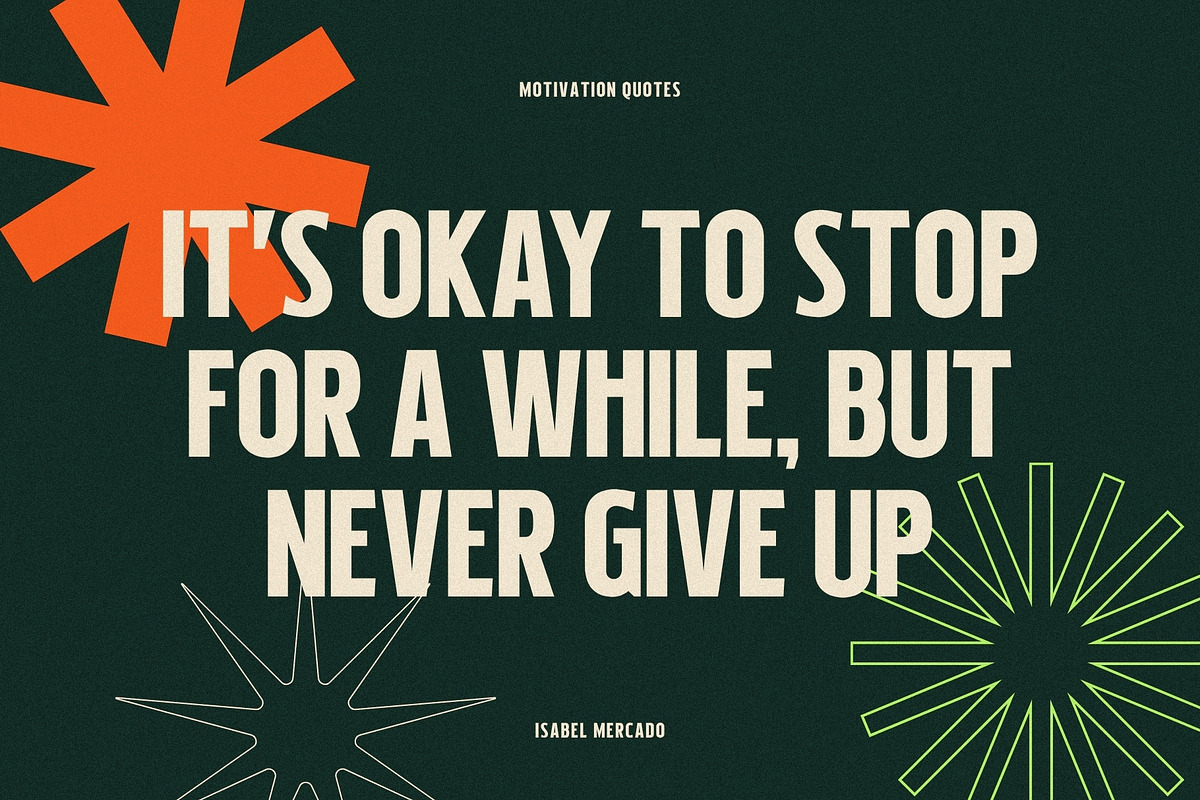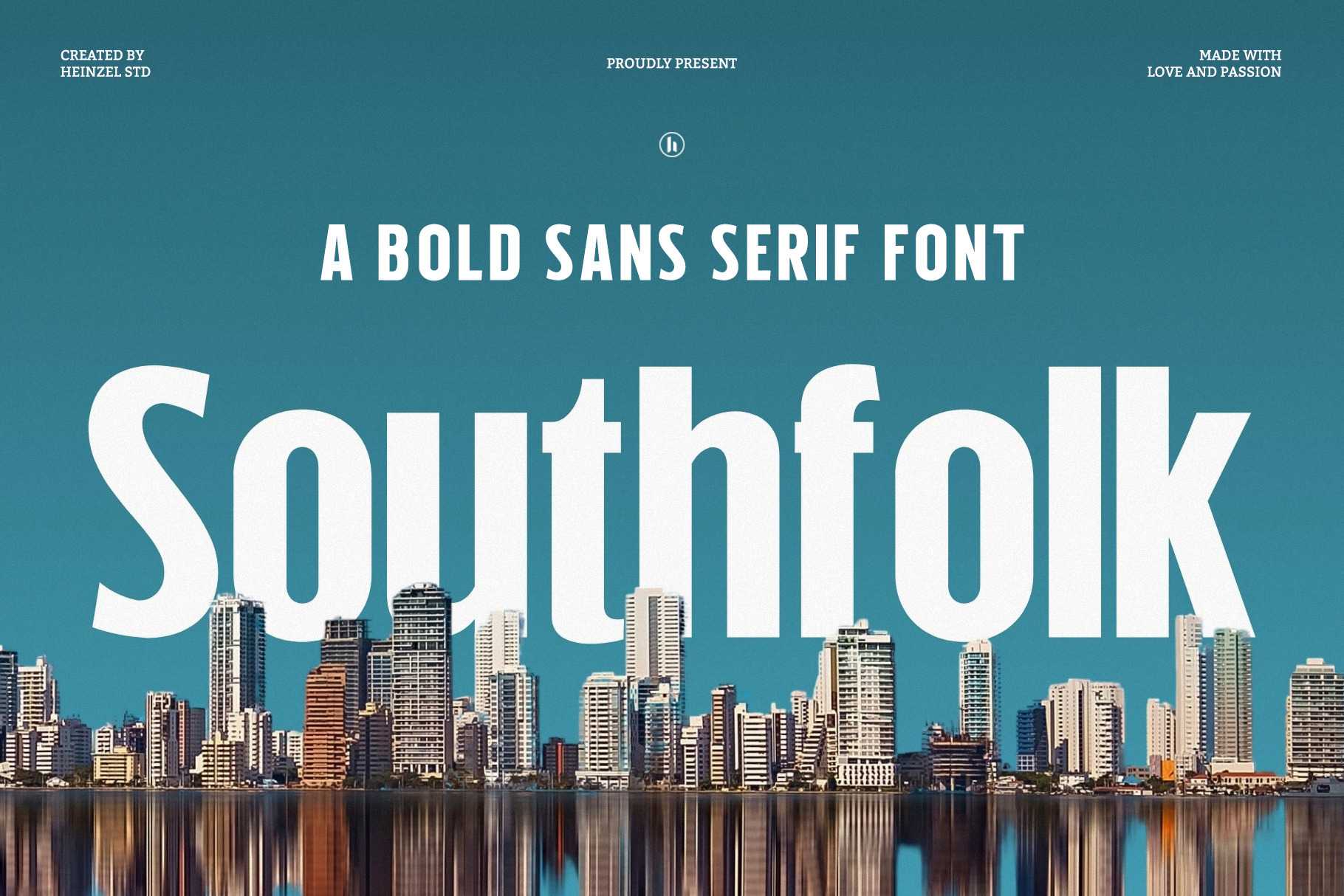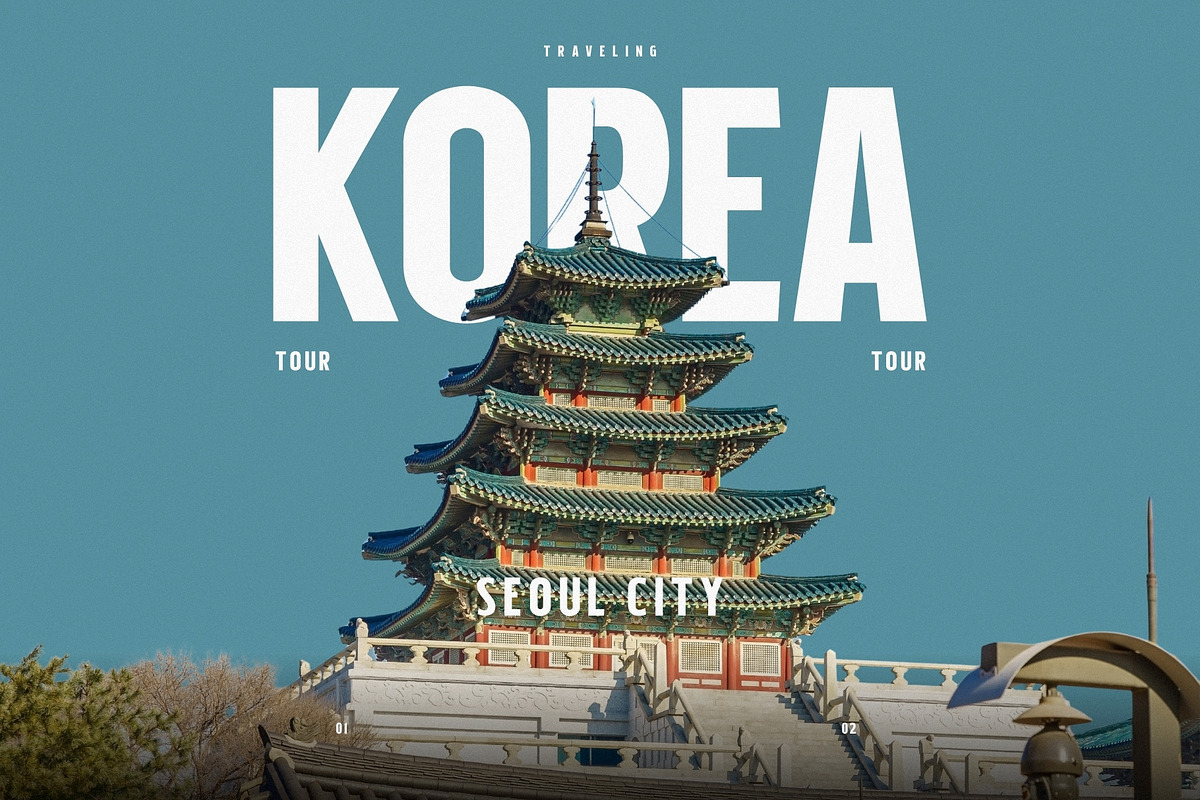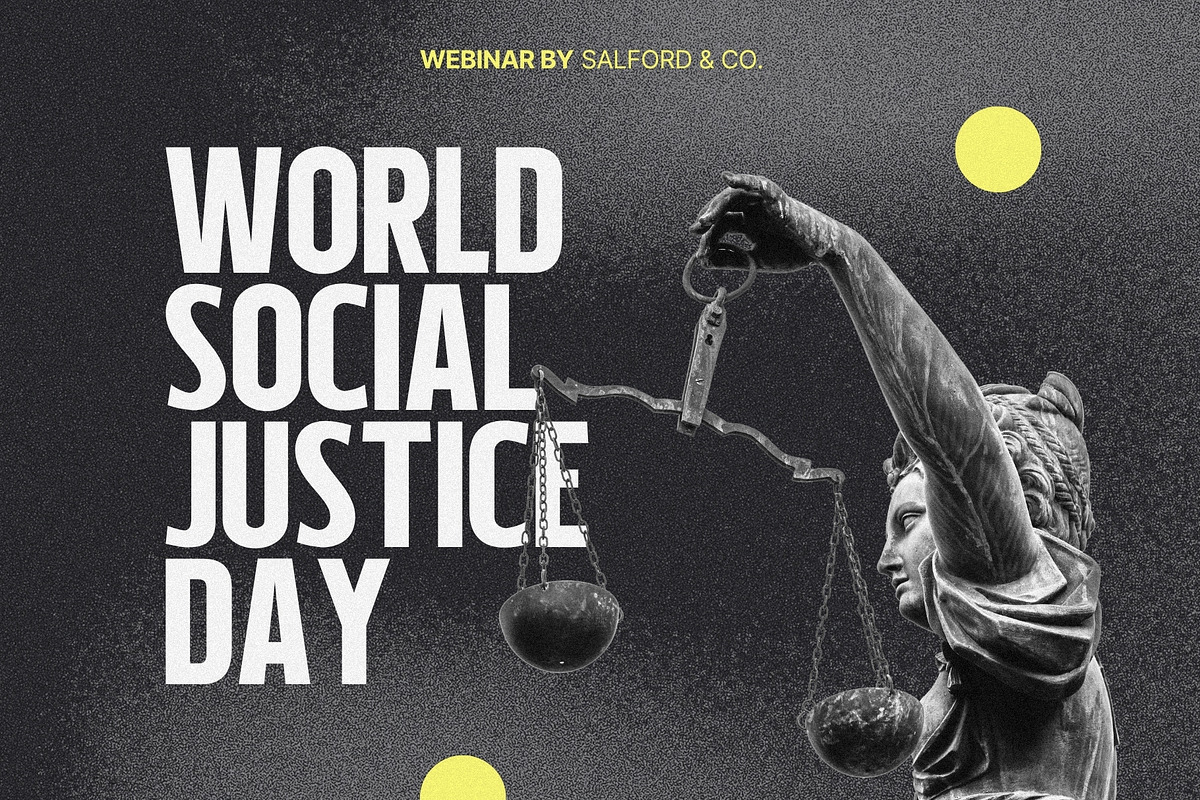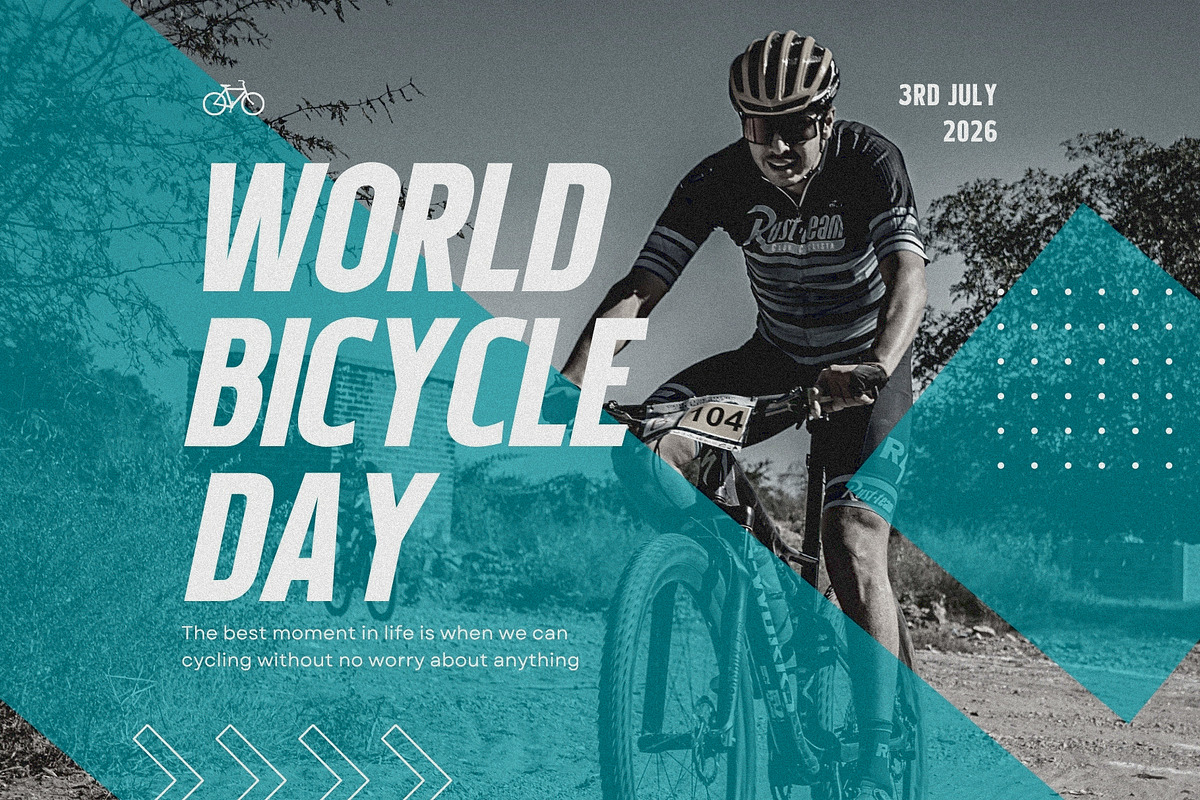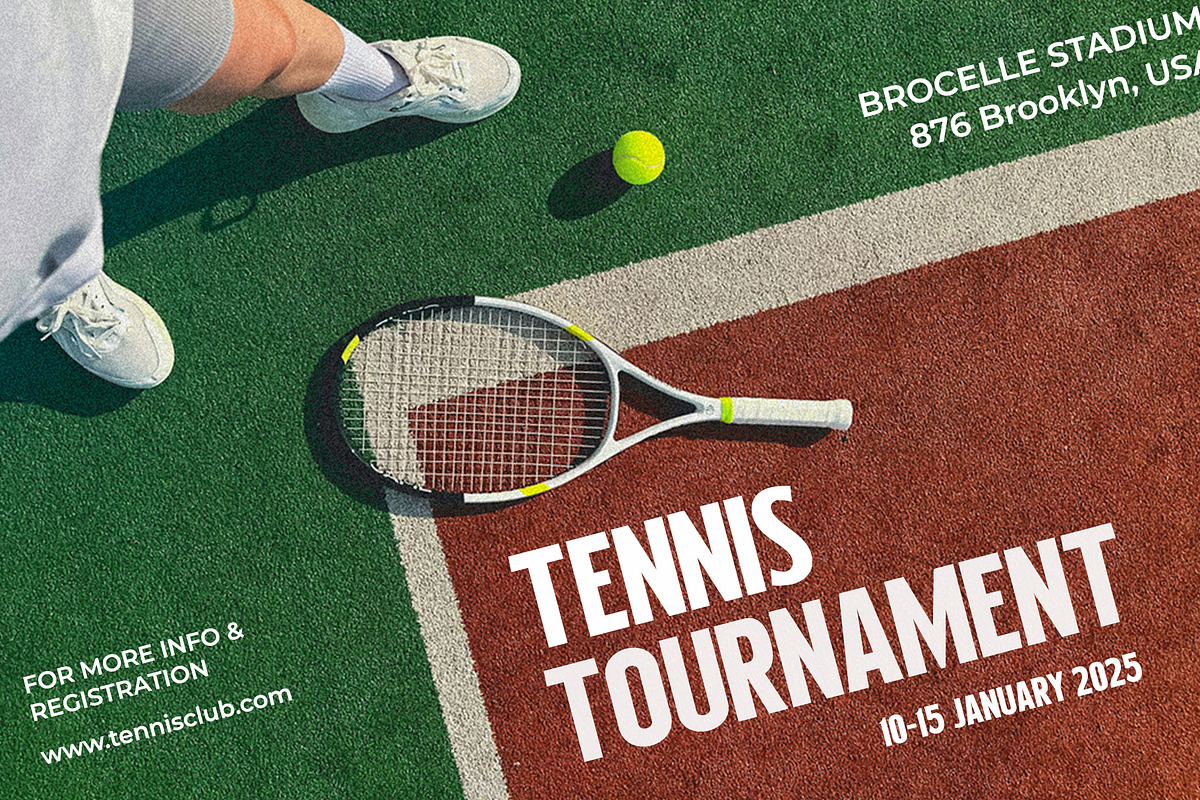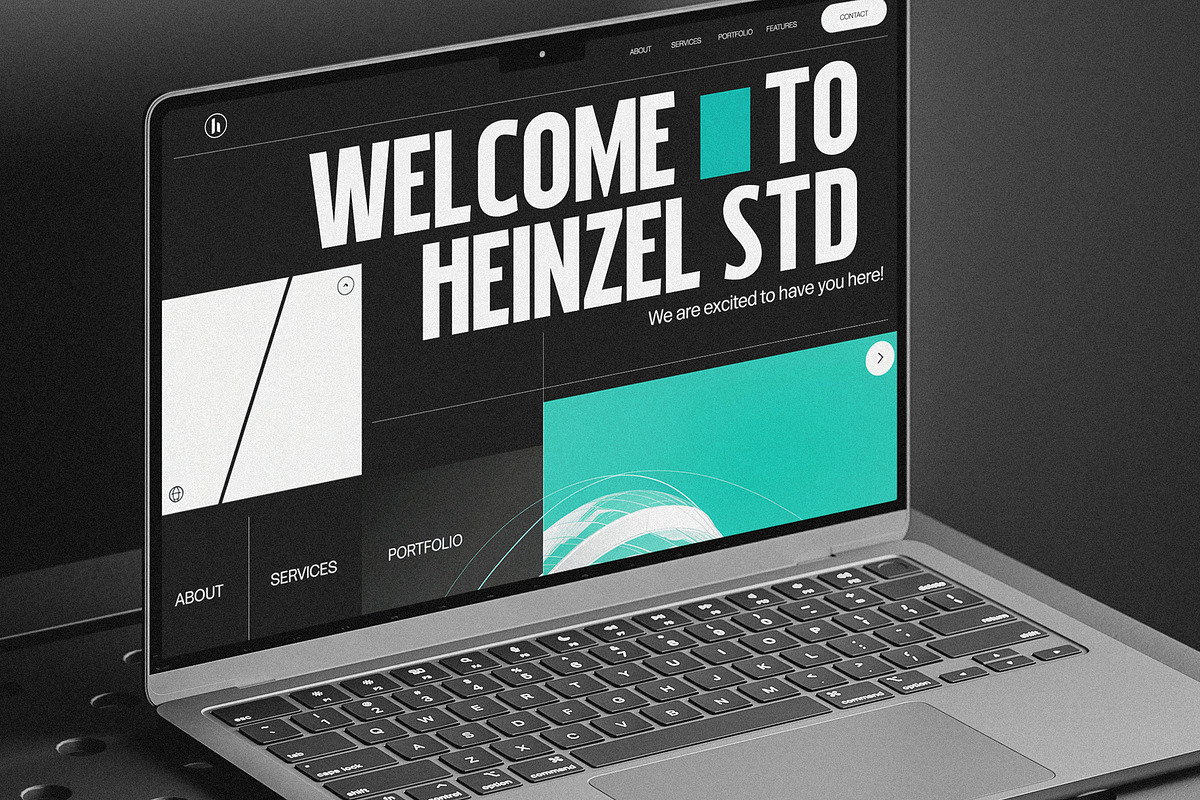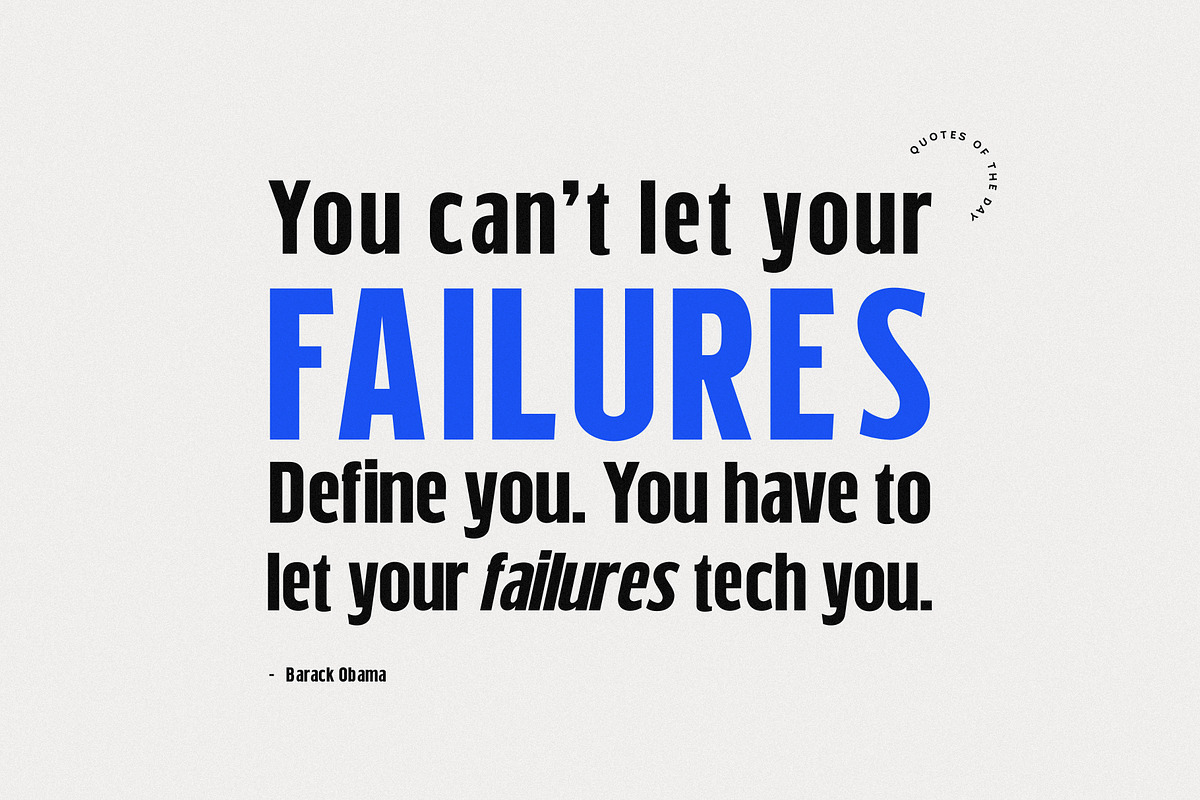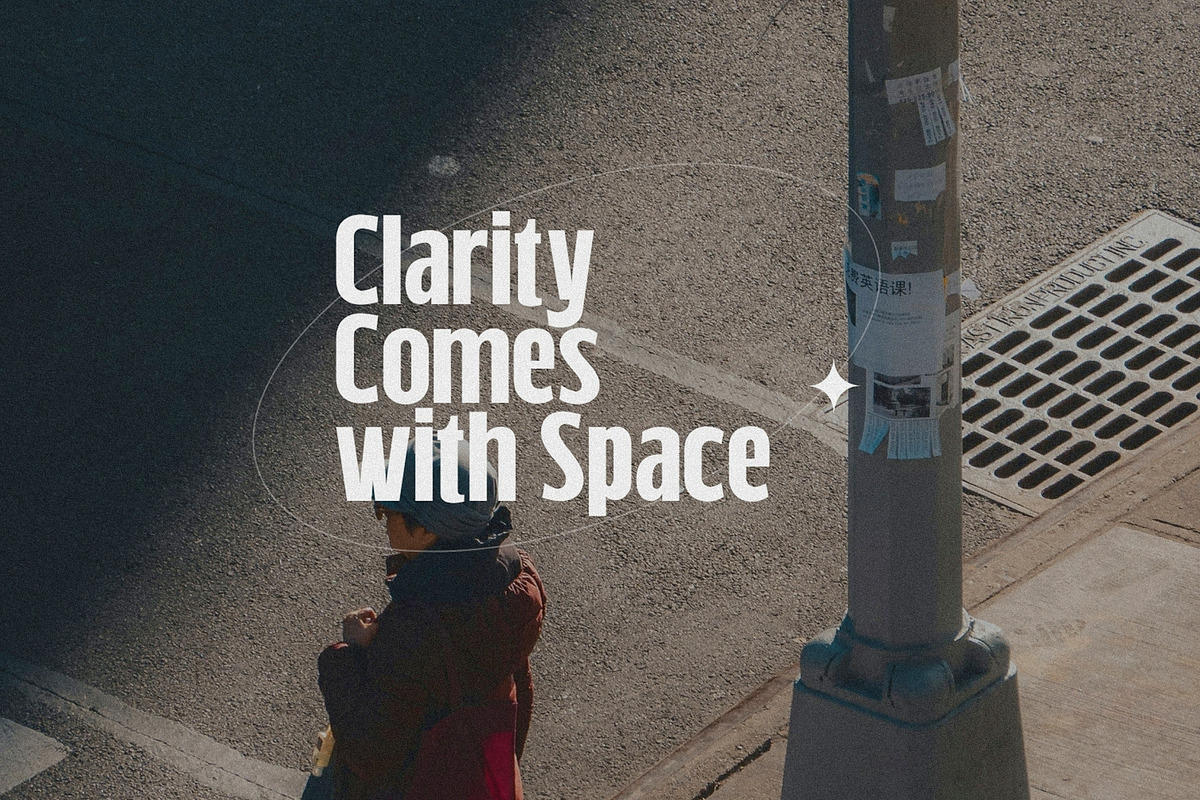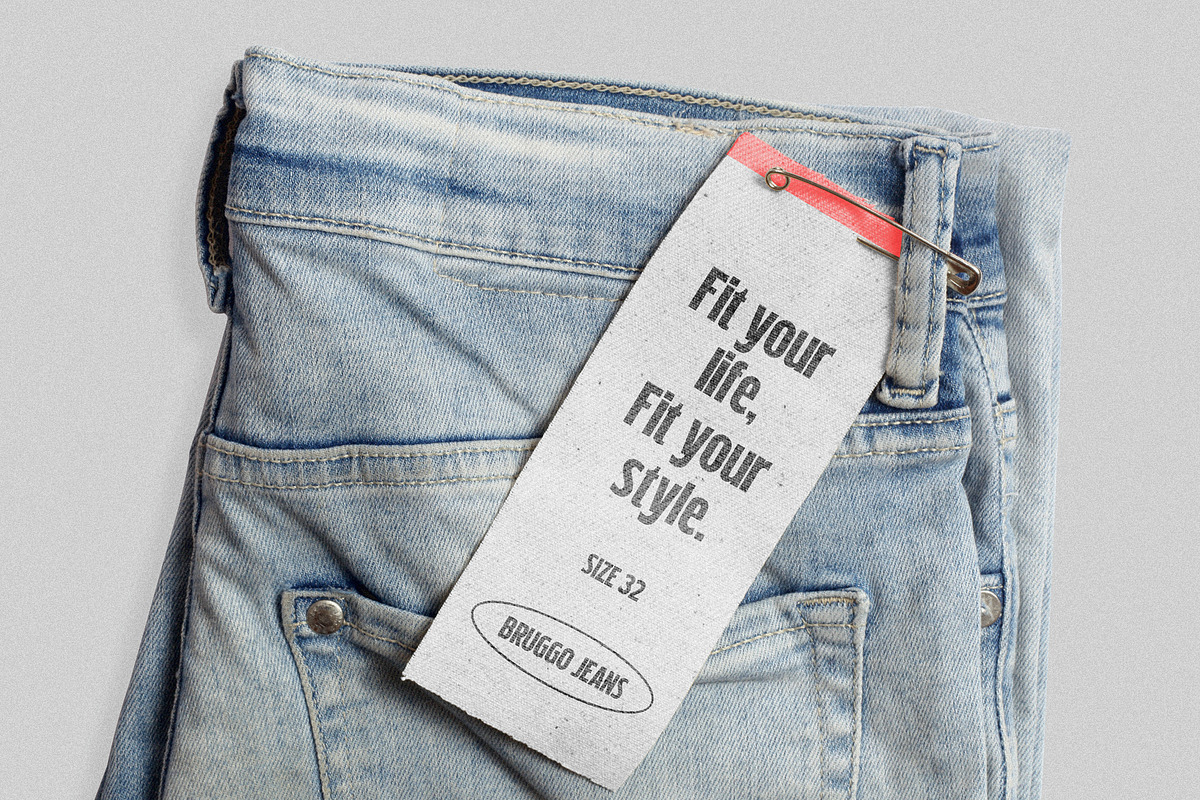
Southfolk Bold Sans Serif Font
Southfolk Font – Bold Sans Serif Display Typeface for Branding, Posters & Headlines
Southfolk is a bold sans serif display font designed to make a powerful first impression. Featuring tall proportions, clean geometric shapes, and confident letterforms, Southfolk delivers exceptional readability while maintaining a modern, eye-catching personality. Its strong presence makes it ideal for logos, branding, posters, packaging, editorial layouts, social media graphics, advertising, and website headers.
Whether you're building a contemporary brand identity or creating impactful marketing materials, Southfolk offers the versatility and visual strength needed to stand out. The balanced spacing and bold structure ensure your typography remains clear and professional across both print and digital media.
Perfect for creative professionals, designers, and businesses looking for a modern display typeface, Southfolk brings confidence, simplicity, and timeless appeal to every project. Sans serif typefaces are widely valued for their clean, modern appearance and excellent screen readability, making them a strong choice for contemporary branding and digital design.